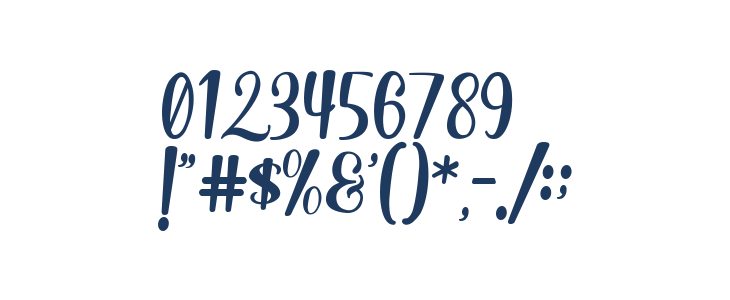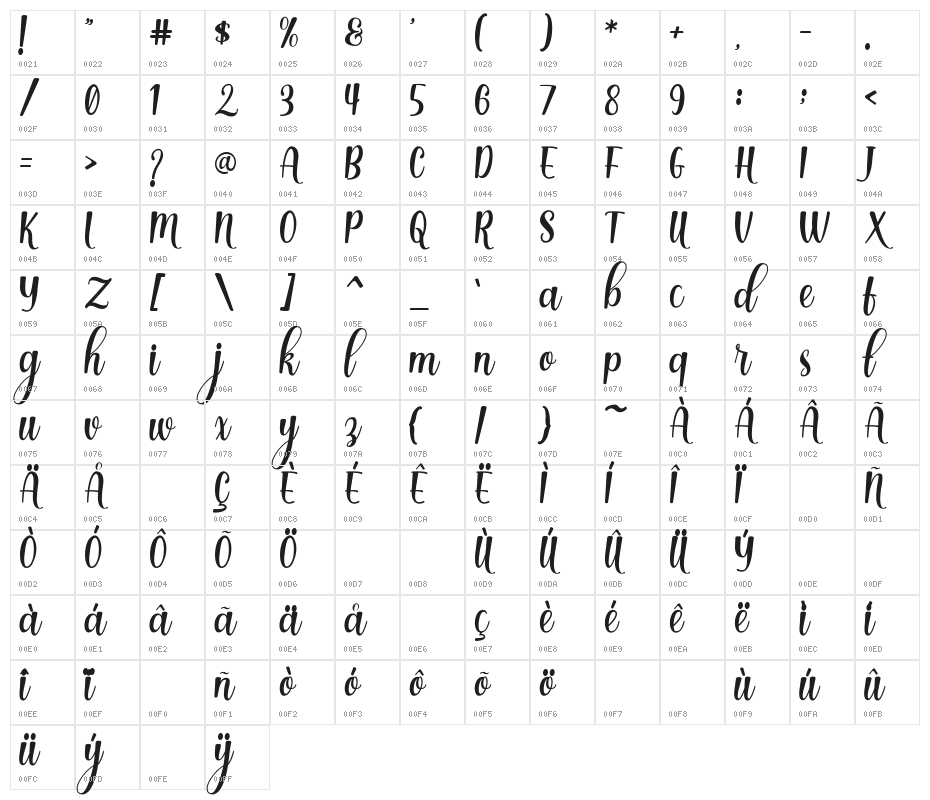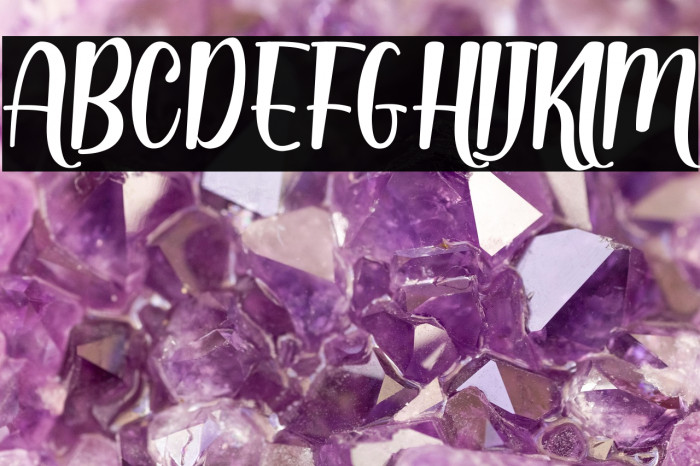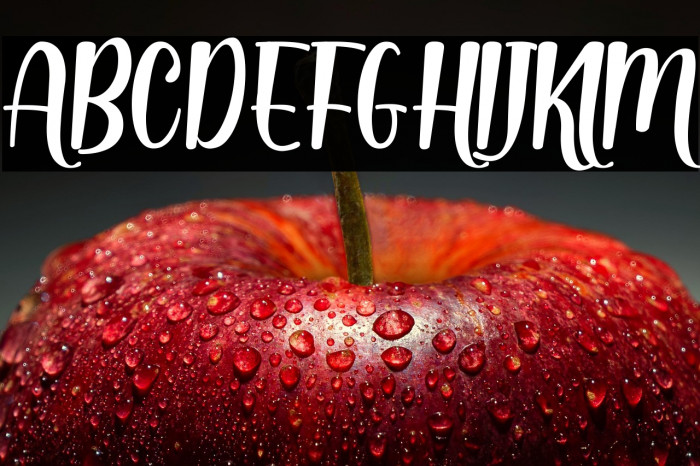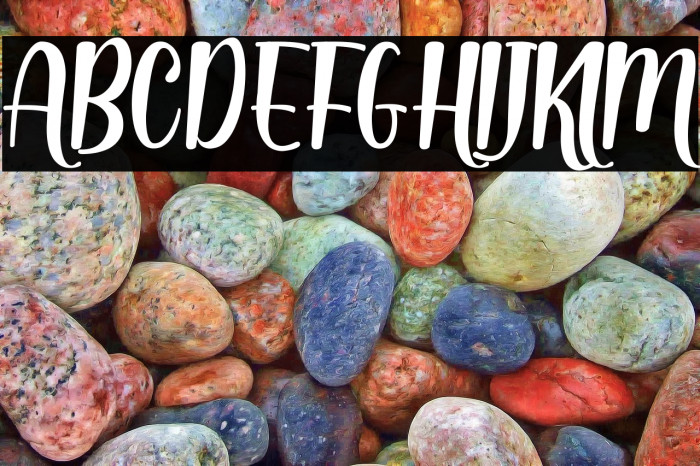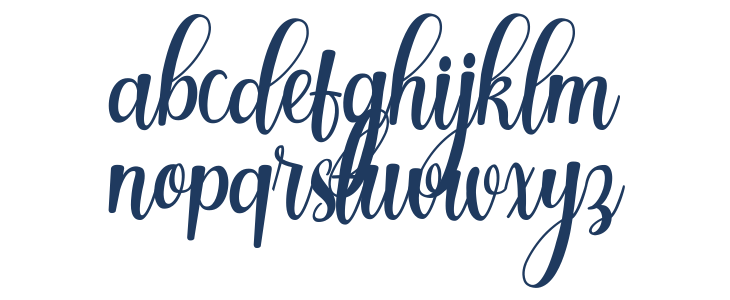
Dinalima Script Font
Dinalima Script Description
This font features a flowing, cursive style that exudes elegance and sophistication. The characters are interconnected with smooth, sweeping strokes, giving it a handwritten appearance. The uppercase letters are bold and prominent, while the lowercase letters maintain a consistent flow, enhancing readability. The numerals and special characters are designed to complement the overall script style, maintaining the same fluidity and grace. This font is ideal for projects that require a personal touch or a sense of refined artistry.
| Overall Style | Elegant, Handwritten |
| Use Case | Logos, Invitations, Decorative text |
| Proposed Projects | Ideal for wedding invitations, greeting cards, branding, and logo design. |